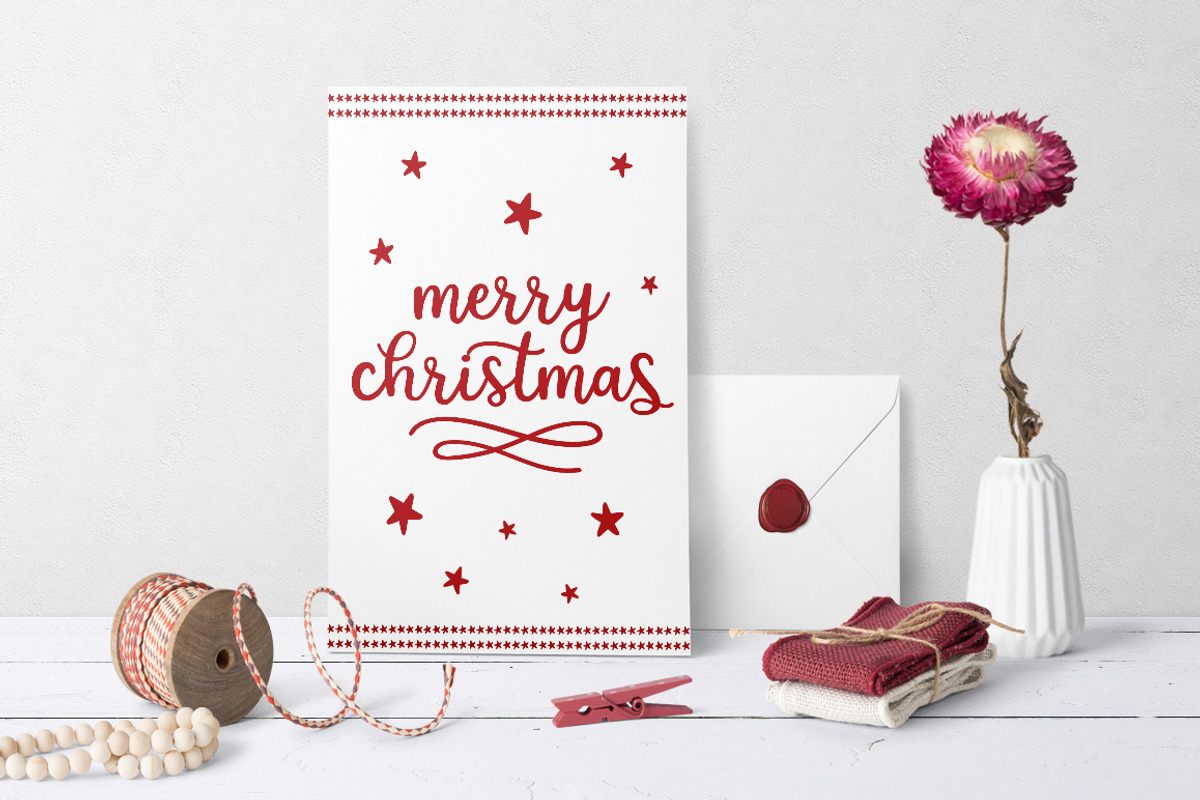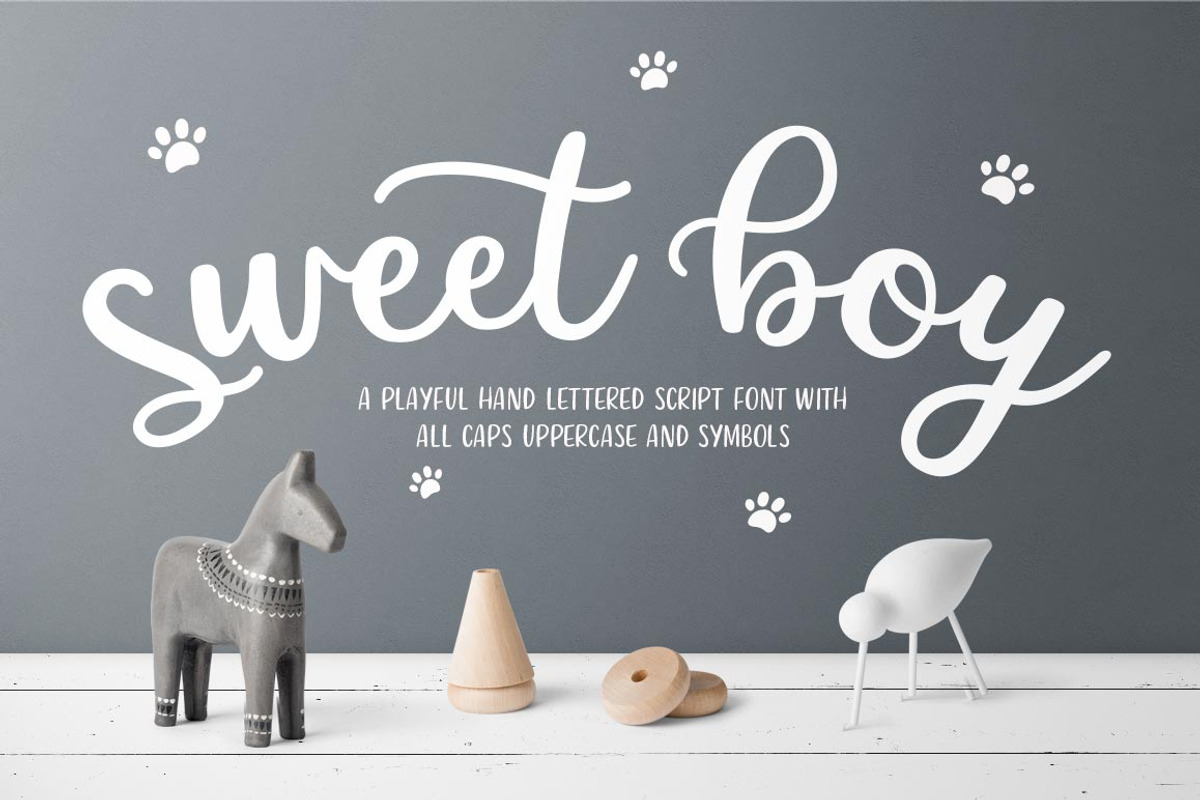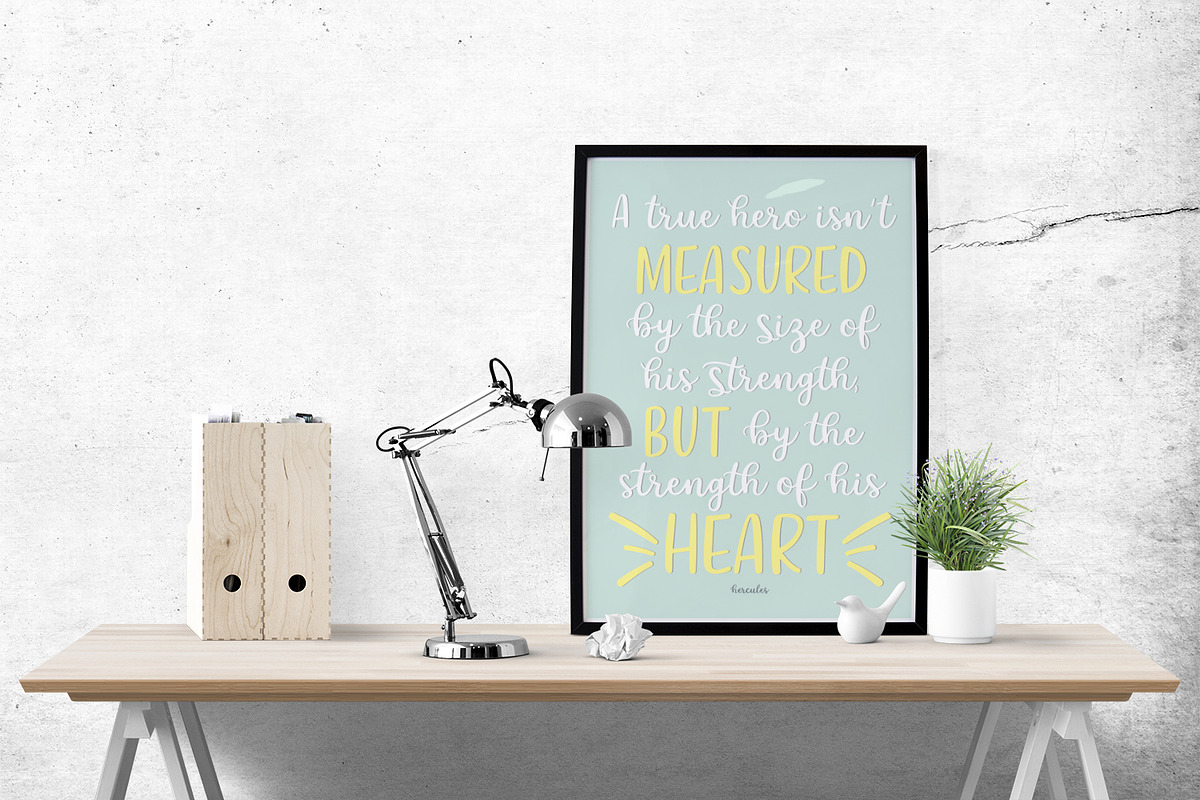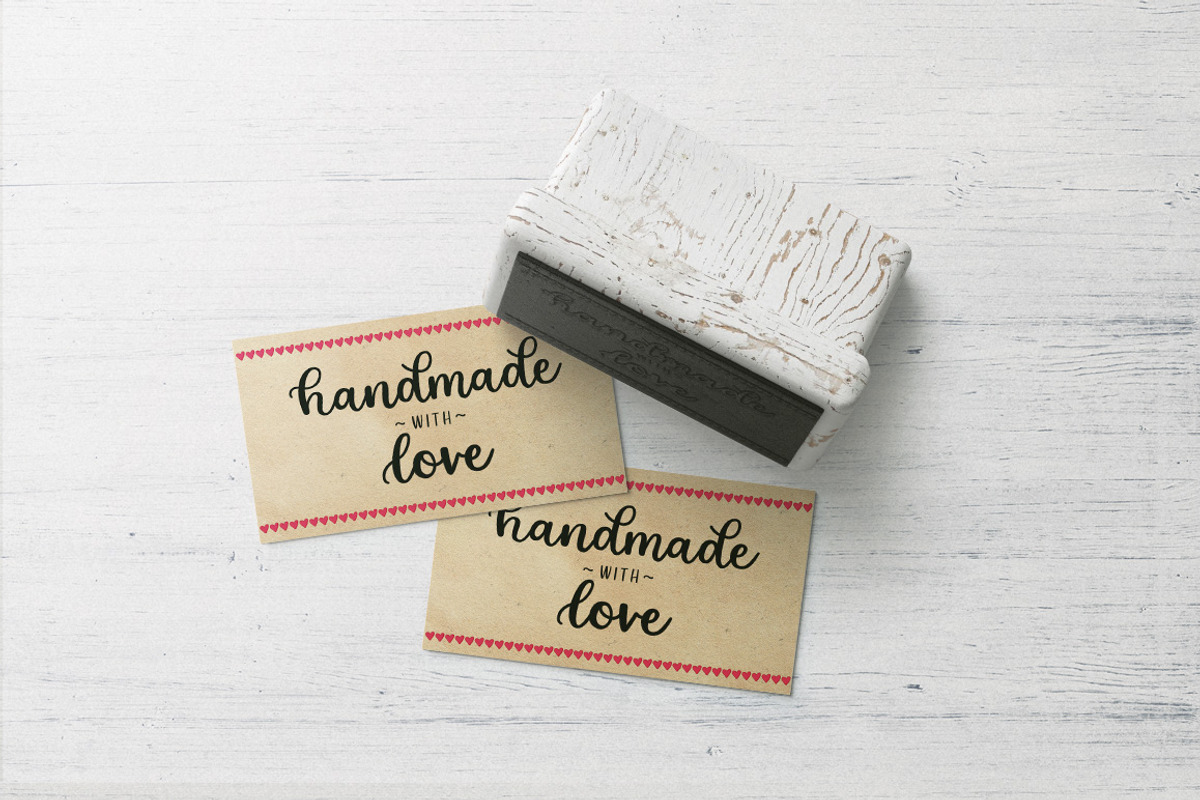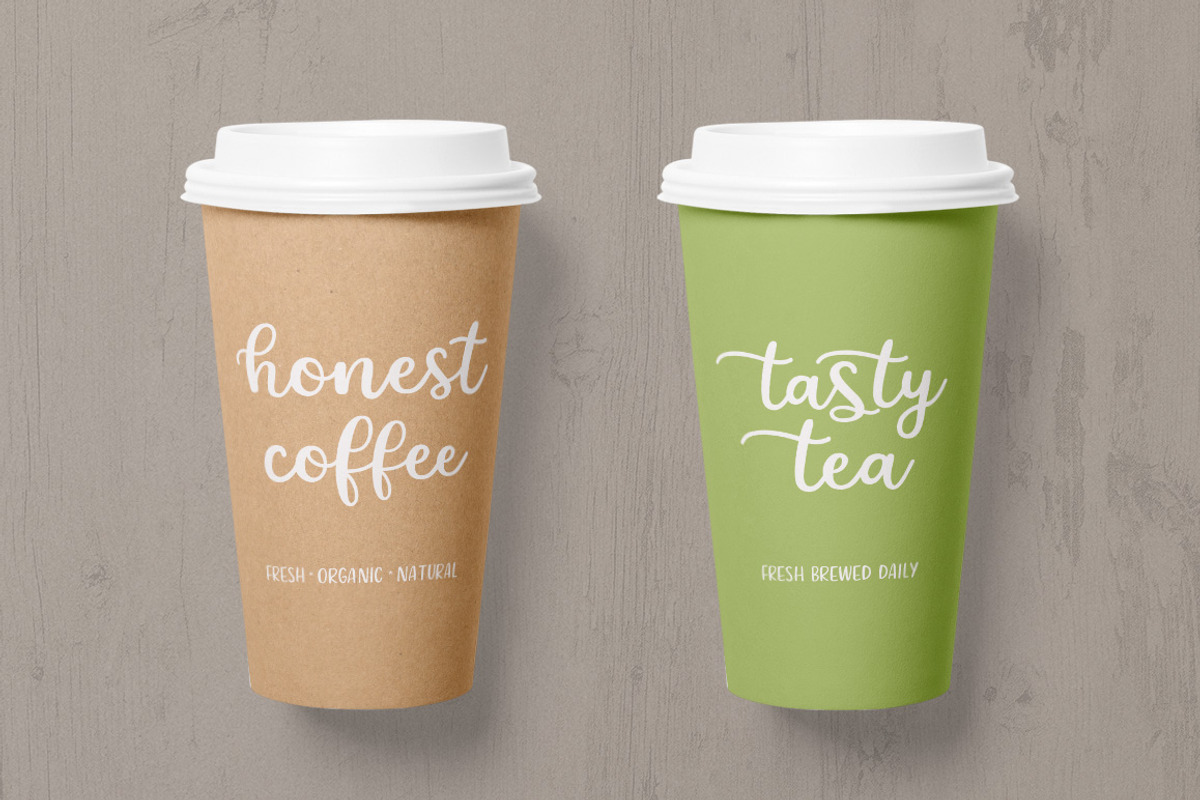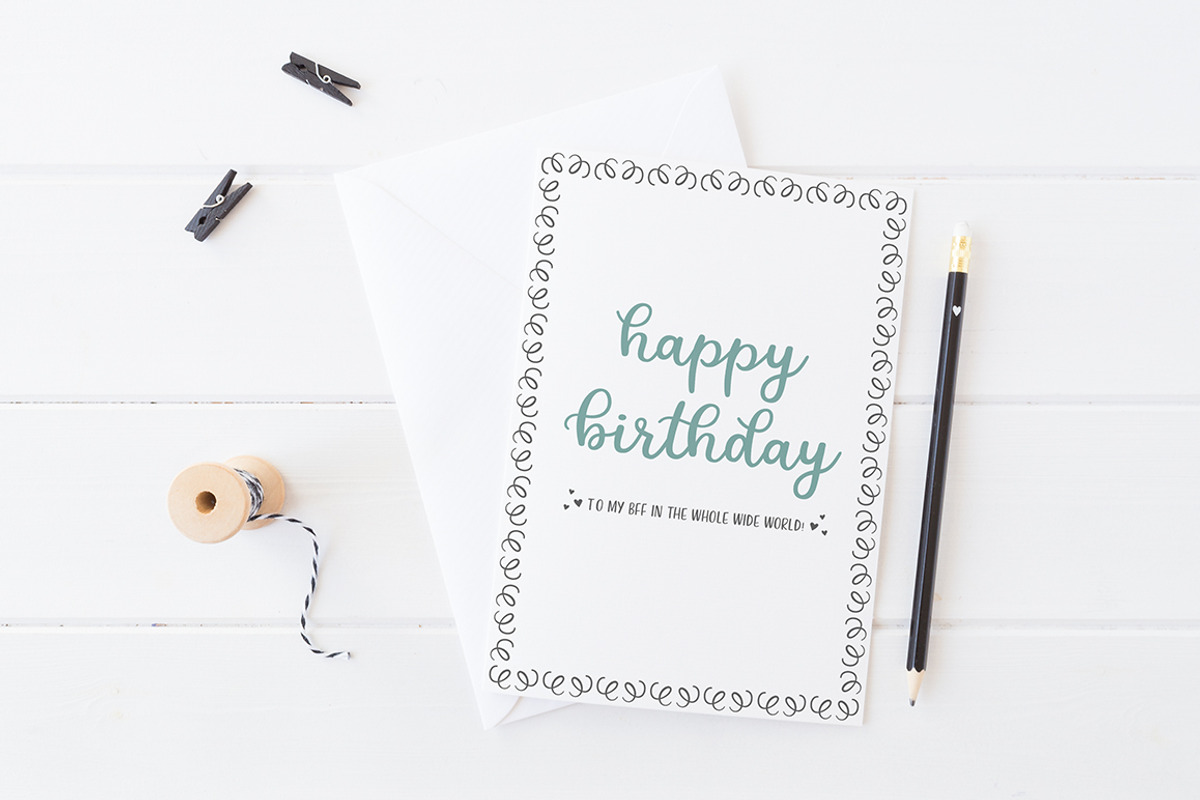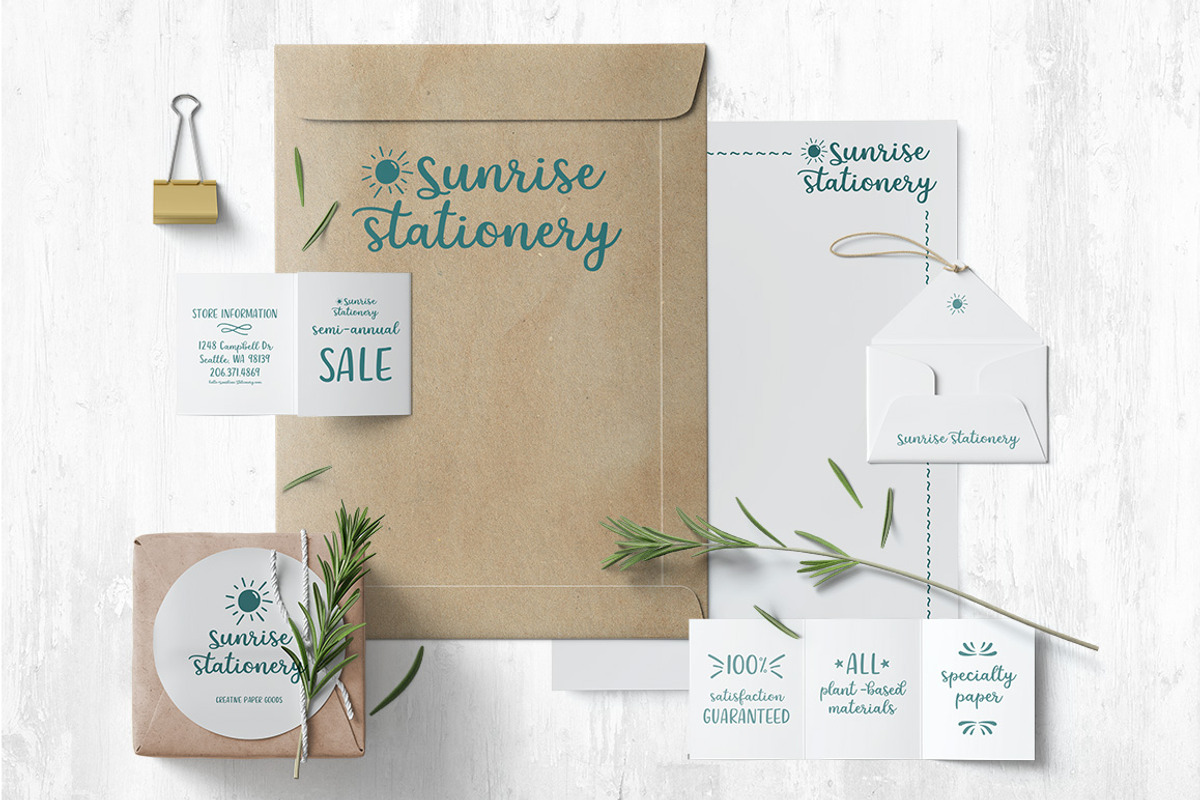
Sweet Boy Script Font
Introducing Sweet Boy! A playful hand lettered script font that comes with all caps uppercase and symbols.
You can use the script style or all caps uppercase alone or combine them together with symbols to create greeting cards, stationery, prints, social media, branding, and so much more!
Script lowercase and all caps uppercase
Full range of punctuations and numerals
14 standard ligatures
7 stylistic characters
Multilingual support for Western European languages
Sweet Boy was inspired by my salt and pepper color miniature schnauzer who is no longer with us. He was full of characters and with his sweet and playful personality, I want to capture them all in this font.